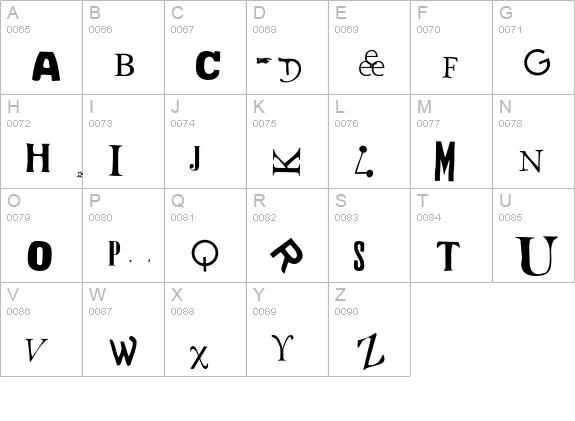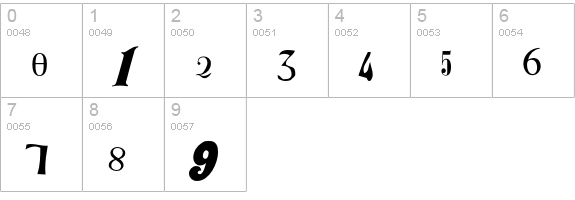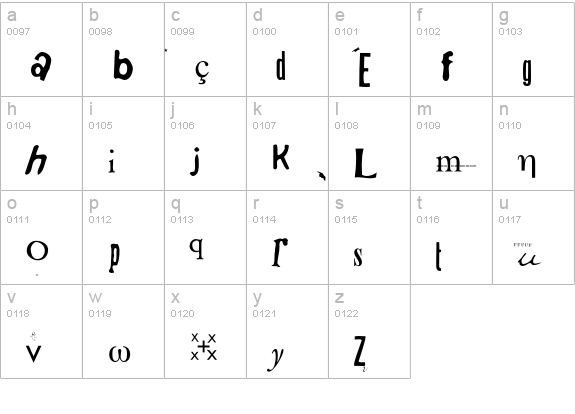
P22Dada-UltraDemiBoldMediumObliqueCondensed Font Details
The P22Dada-UltraDemiBoldMediumObliqueCondensed font is a stunning display of artistic expression and boldness. With its unique combination of ultra-demi bold weight, medium slant, and condensed width, this font exudes a sense of strength and modernity. Designed with the inspiration of the Dada art movement, known for its unconventional and avant-garde approach, this font captures the essence of chaos, rebellion, and creative freedom. Its irregular letterforms, exaggerated strokes, and playful curves make it a truly distinctive typeface that stands out in any design project. With its versatility and eye-catching aesthetics, the P22Dada-UltraDemiBoldMediumObliqueCondensed font is perfect for a wide range of applications. Whether it's used for headlines, posters, logos, or any other design element, this font will make a bold statement and leave a lasting impression. One of the best features of this font is that it is freely available to download at FontsMarket.com. This means that designers and creatives can access and utilize this remarkable typeface without any cost. With just a few clicks, you can add this powerful font to your design arsenal and unlock a world of possibilities. So, if you're looking to add a touch of artistic flair, rebelliousness, and modernity to your designs, the P22Dada-UltraDemiBoldMediumObliqueCondensed font is the perfect choice. Download it for free at FontsMarket.com and let your creativity run wild.